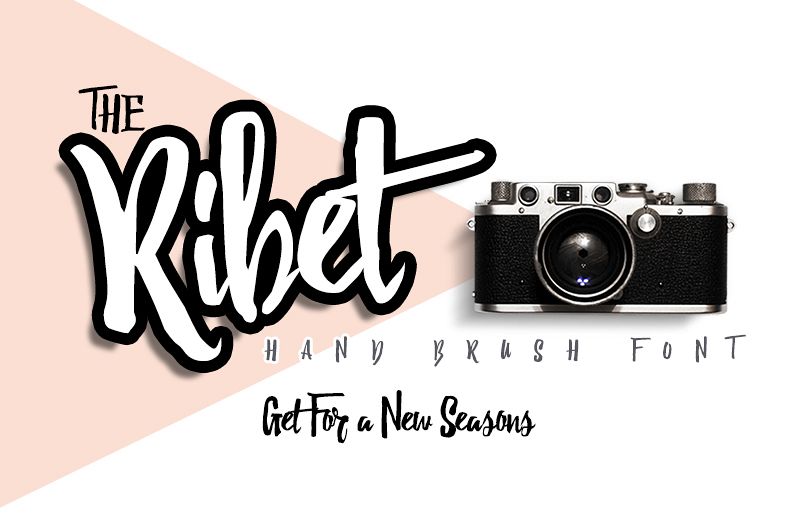
The Ribet
RibetBanget-Script
The Ribet  is hand brush font, designed to combine perfectly and allow you to create stunning hand-lettering quickly and easily.  Ideal for giving your text that final touch of finesse!
Comes with upper and lowercase characters, large set of punctuation glyphs, numerals, and supports international languages. Stylistic alternates for several key lower case characters are also available, accessible in the Adobe Illustrator Glyphs panel, or under Stylistic Alternates in the Adobe Photoshop OpenType menu.